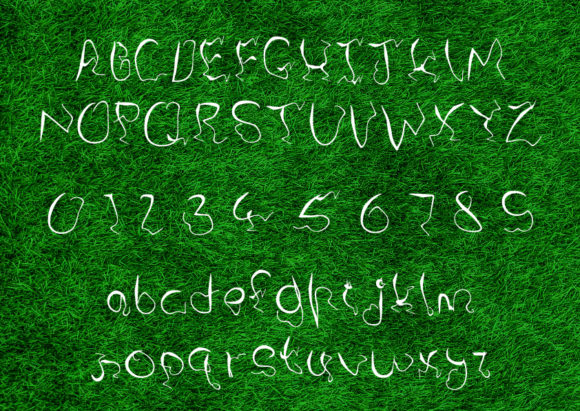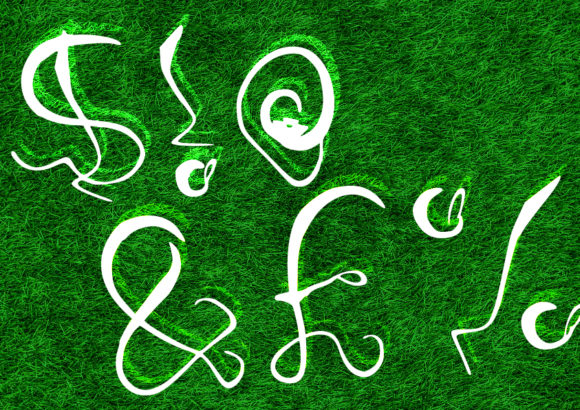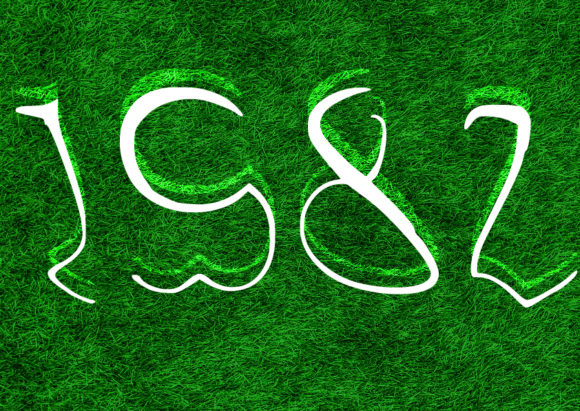
Crazy Snail Font
About Crazy Snail Font
Crazy Snail is a uniquely drawn script that evokes the look of a snail’s slimy trail. Get inspired by this extraordinary typeface!